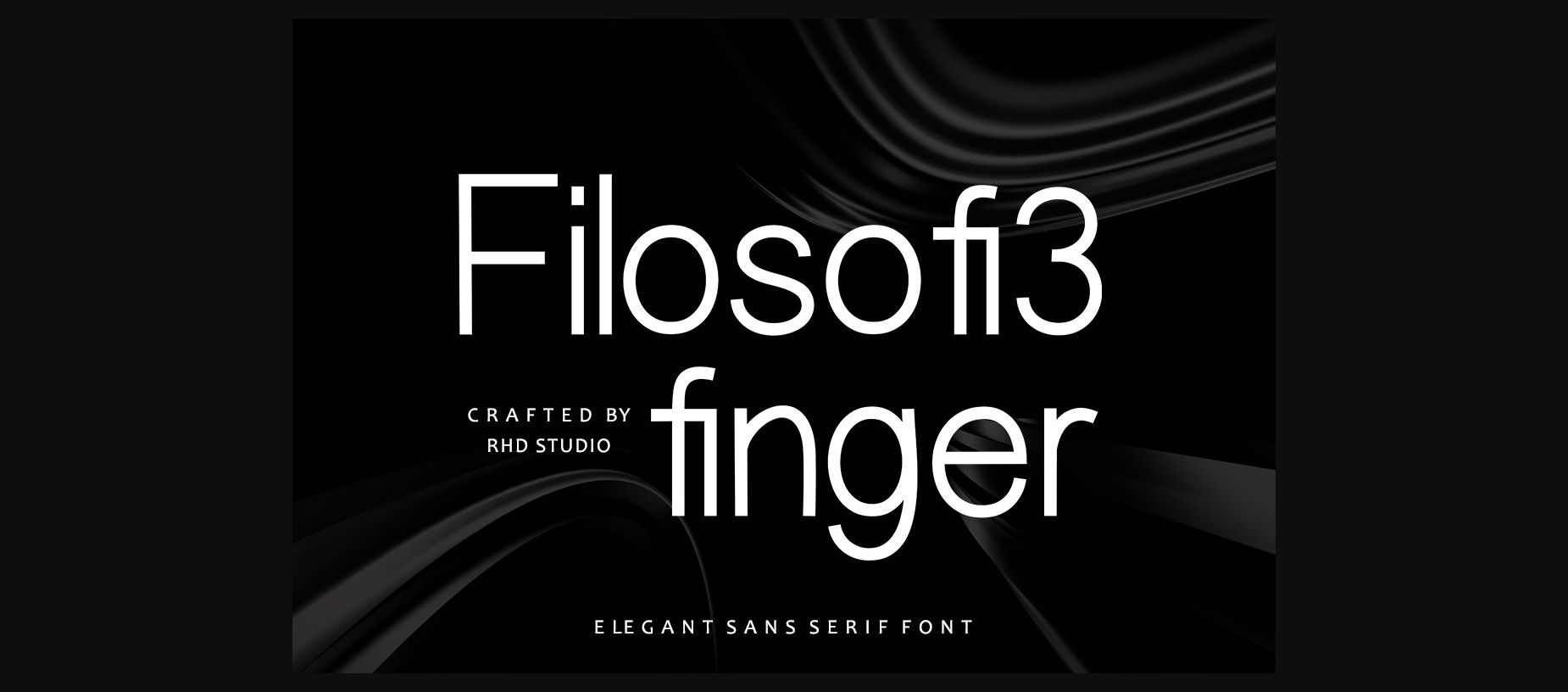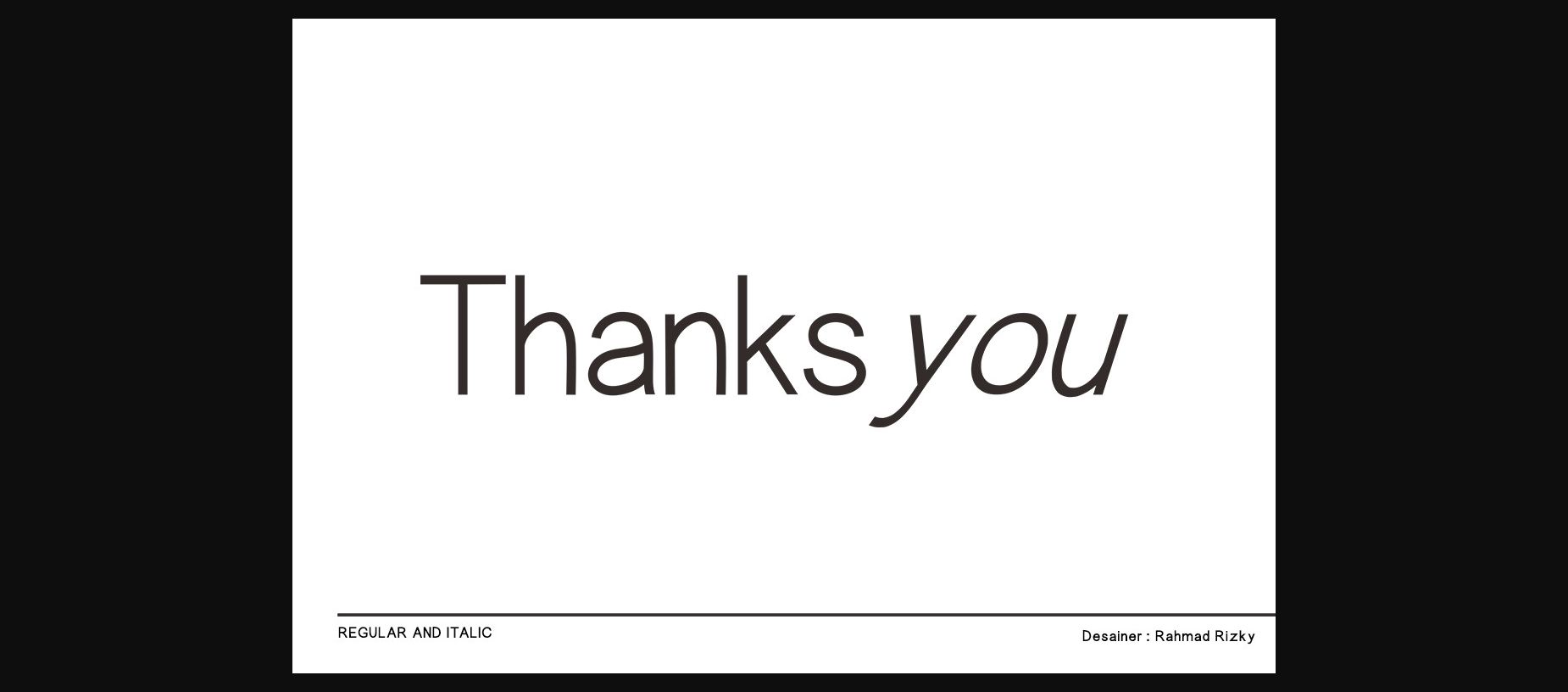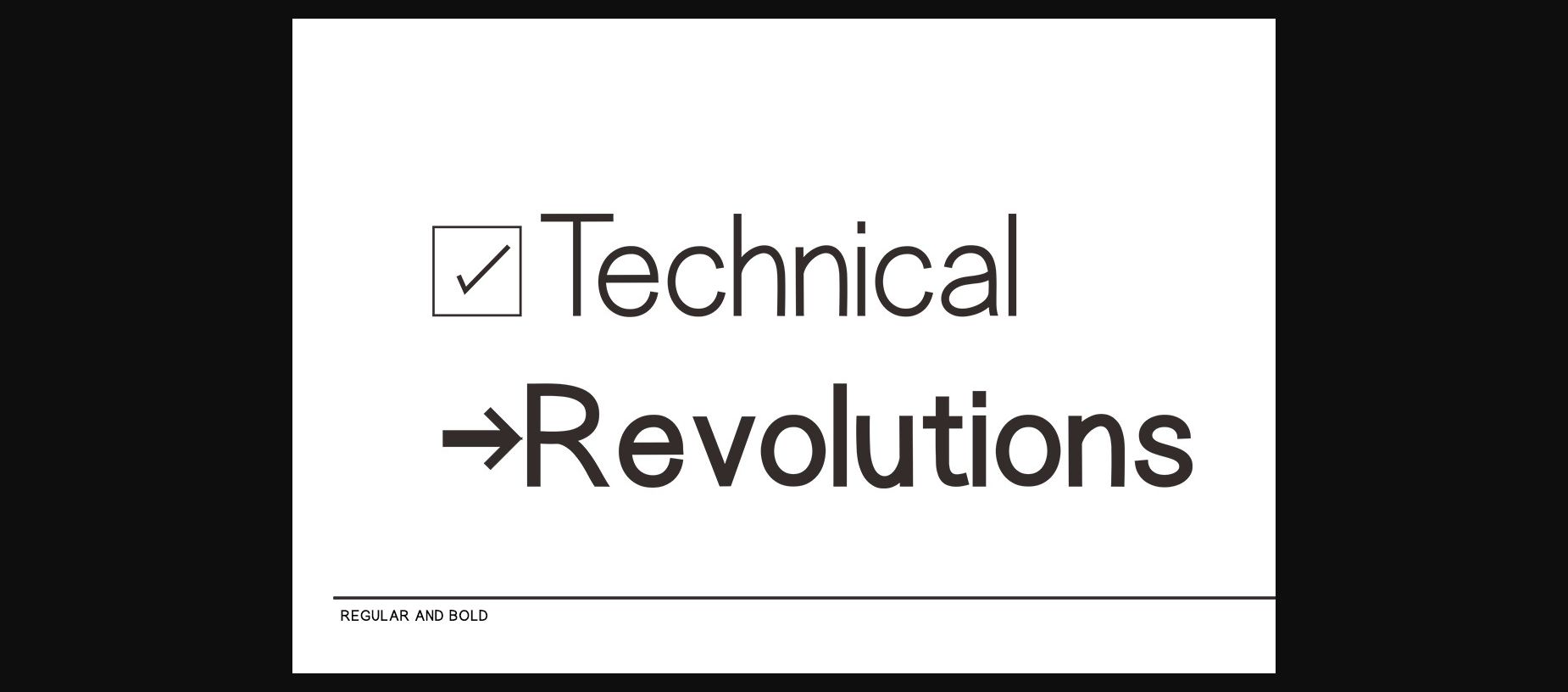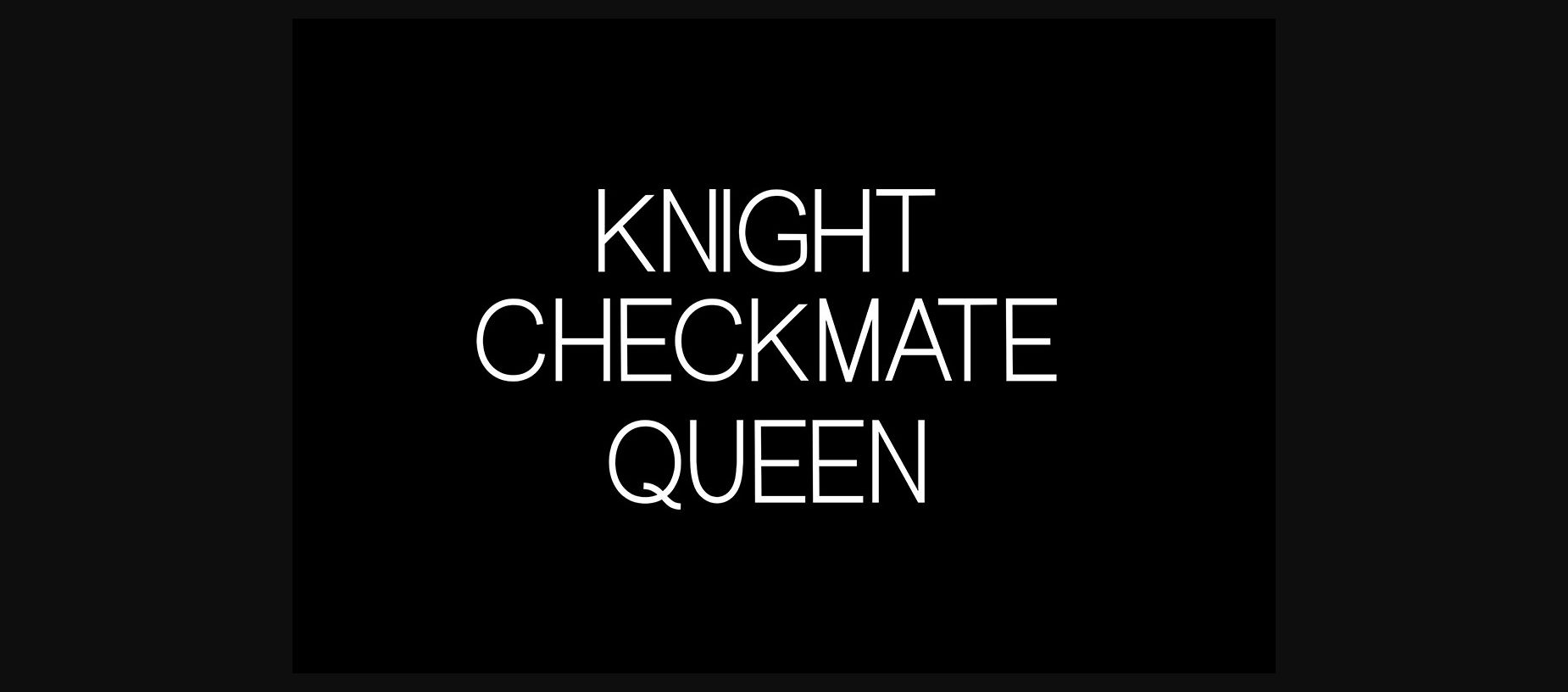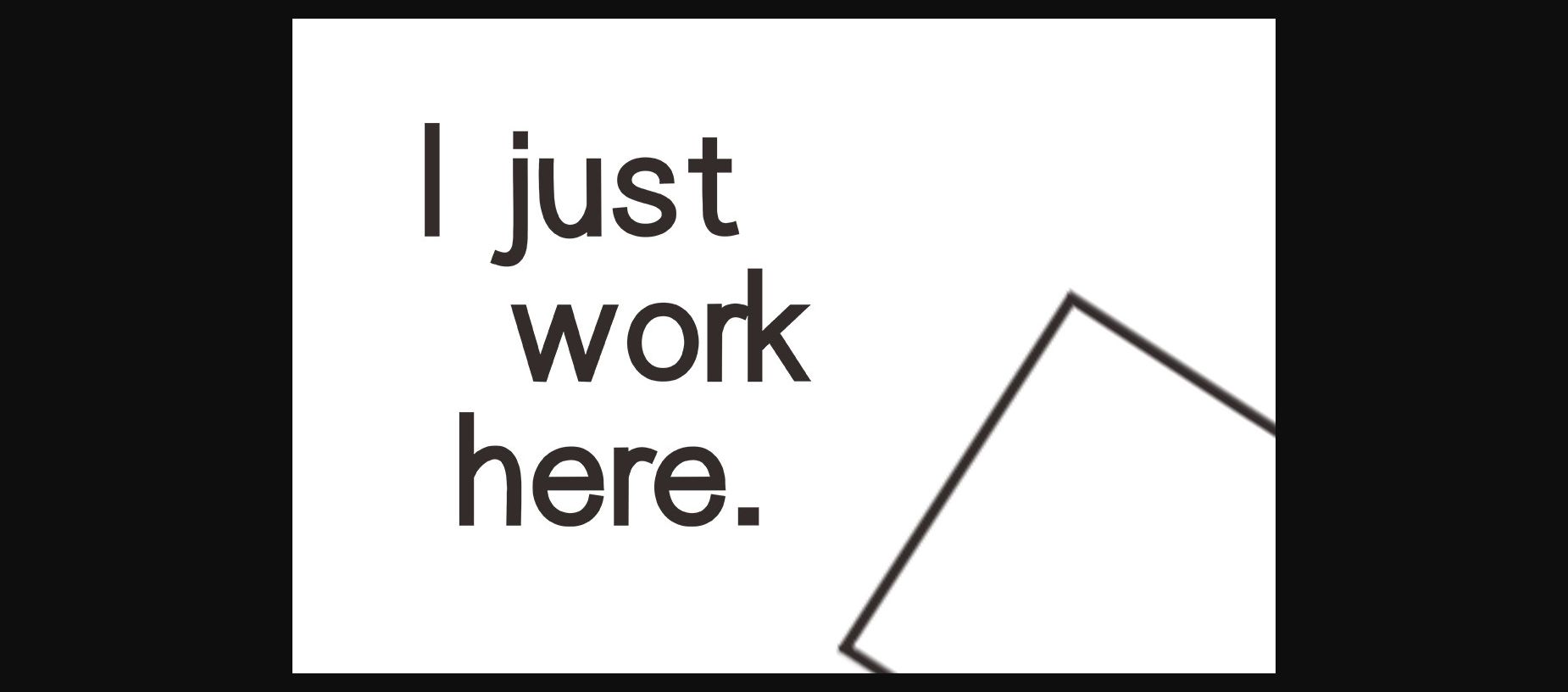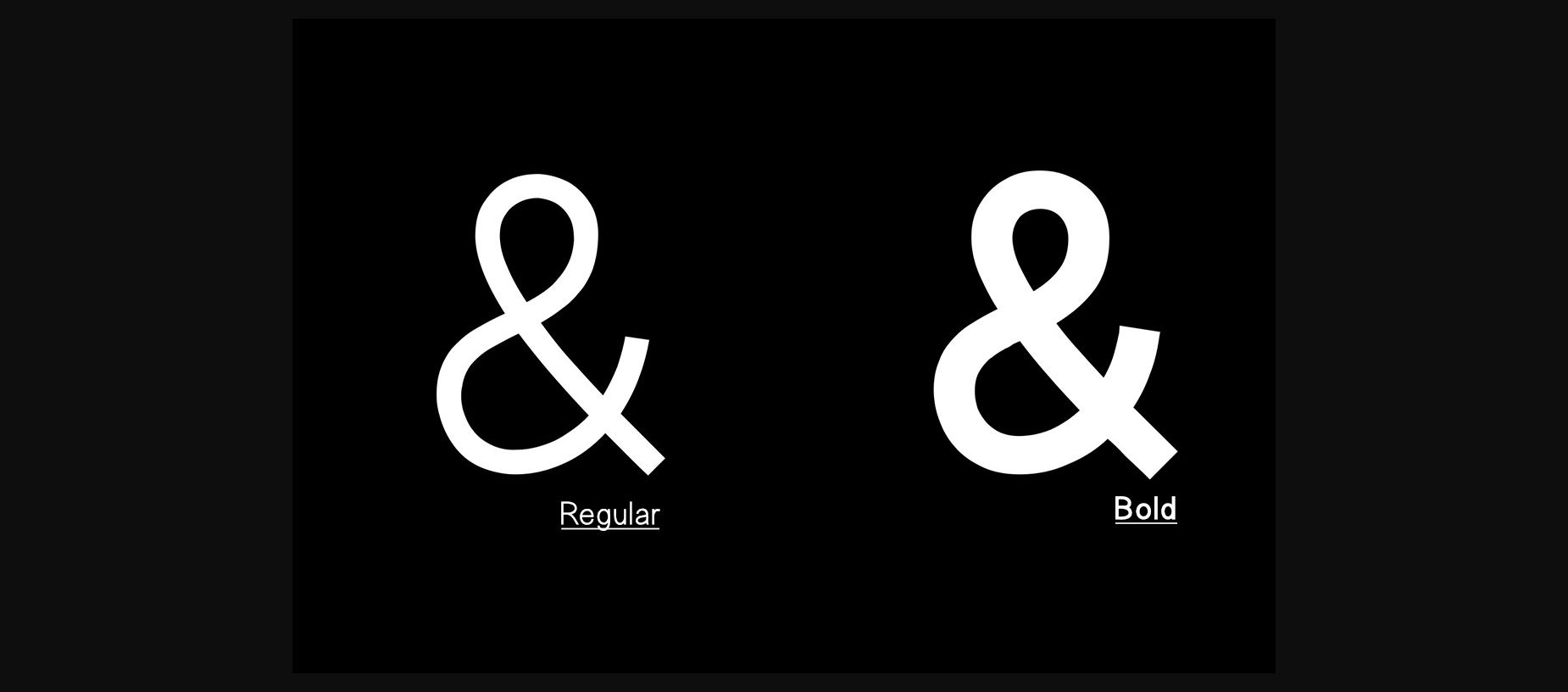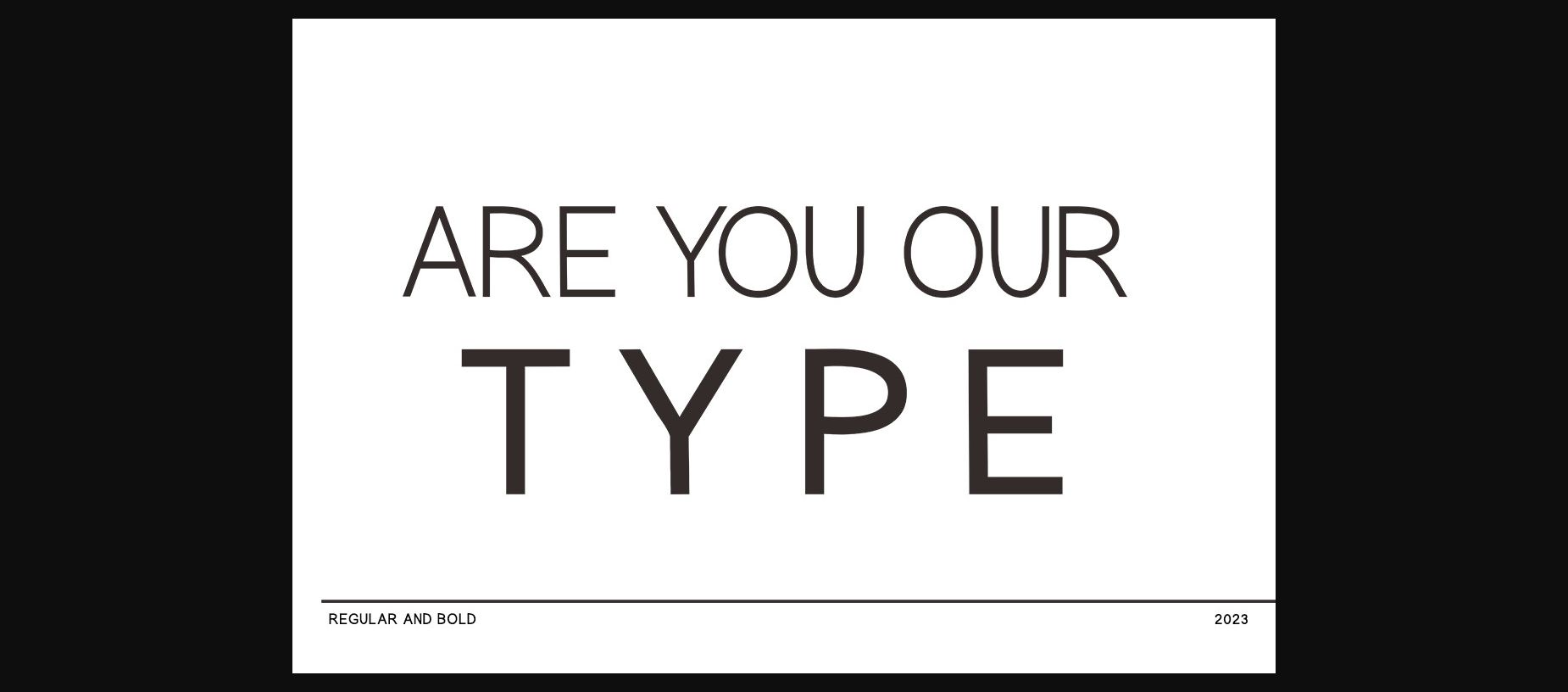
About Filosofi3 Finger Font
Filosofi3 Finger is an elegant serif font, that features a very delicate and classy look. Not too thin and not too thick, balanced and varied, Filosofi3 Finger was designed to
enhance the beauty of your projects.